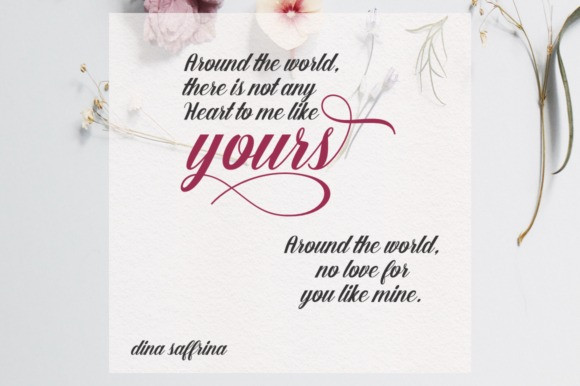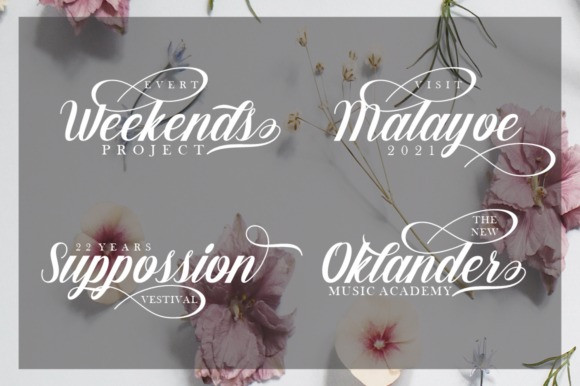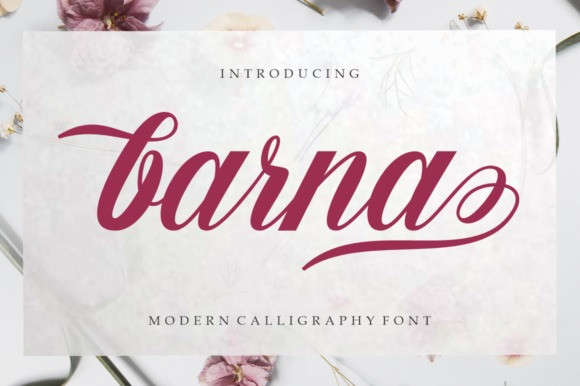
Barna Font
Barna Script Font is a modern calligraphy font. This font is made for those of you who need a touch of elegance and a reflection of modern style in their designs. Barna is PUA encoded which means you can access all of the glyphs and swashes with ease.